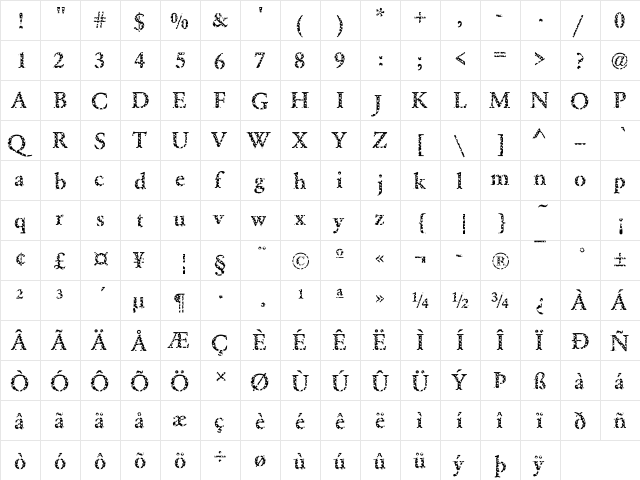
Garamond33 Becker Regular
Design Context for Garamond33 Becker Typeface
Garamond33 Becker is a composed and adaptable typeface that performs quietly and consistently across a wide range of design contexts.